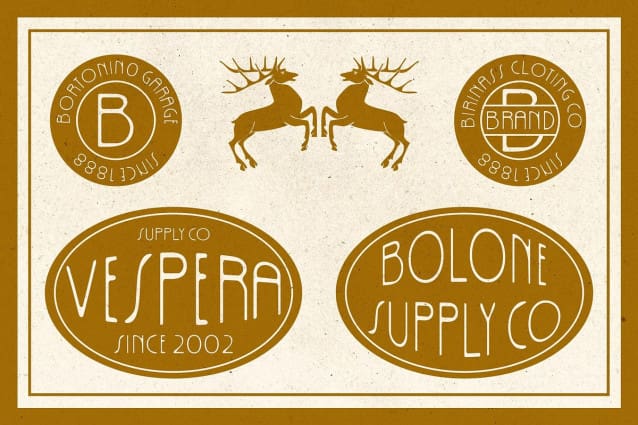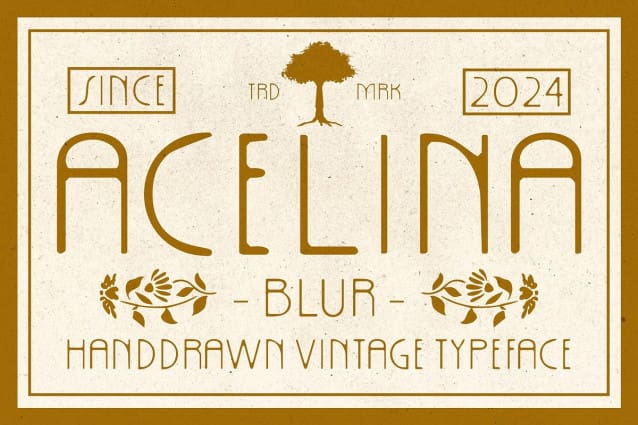
Acelina Blur Font
Acelina Blur Font: Tailored Display Typography, a distinct sans serif style, featuring a condensed, low-contrast design. Its custom appearance, enhanced with subtle blur effects, sets it apart as a truly unique font for display purposes.
Eye-Catching Visuals The blur effect applied to This font adds a dynamic quality, making it exceptionally eye-catching. Each character appears fluid and engaging, ensuring that your designs stand out in any context.
Versatile Display Applications Designed specifically for display use, This font is versatile enough to elevate a wide range of design projects. From posters and headlines to branding materials, its custom look adds a touch of sophistication and intrigue.
Effortless Impact With This font, making a bold statement has never been easier. Its low-contrast, condensed design coupled with the subtle blur effect effortlessly captures attention and delivers impact in your visual communications.
Uniquely Captivating This font emerges as a font that seamlessly blends custom design with modern display needs. Its condensed, low-contrast style, coupled with the captivating blur effect, ensures that your designs leave a lasting impression with effortless flair and style. Step into the realm of This font and let your creativity shine with unmatched visual impact.